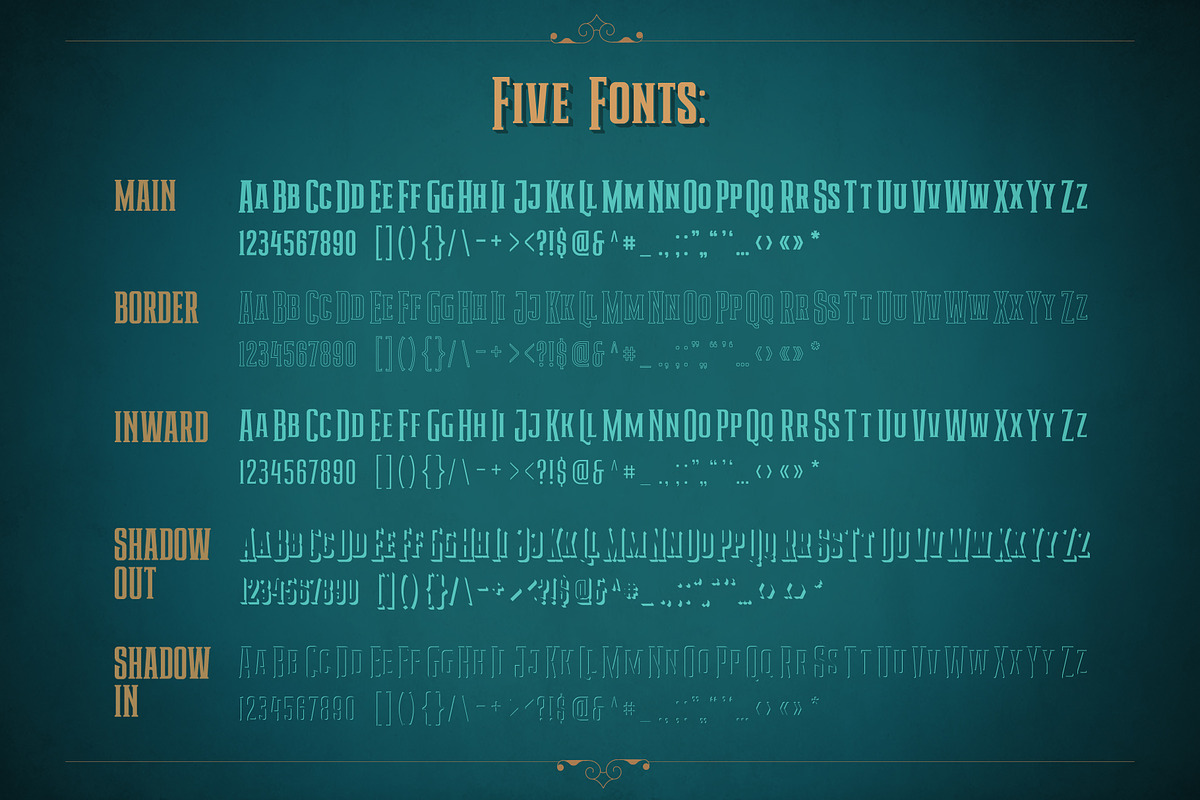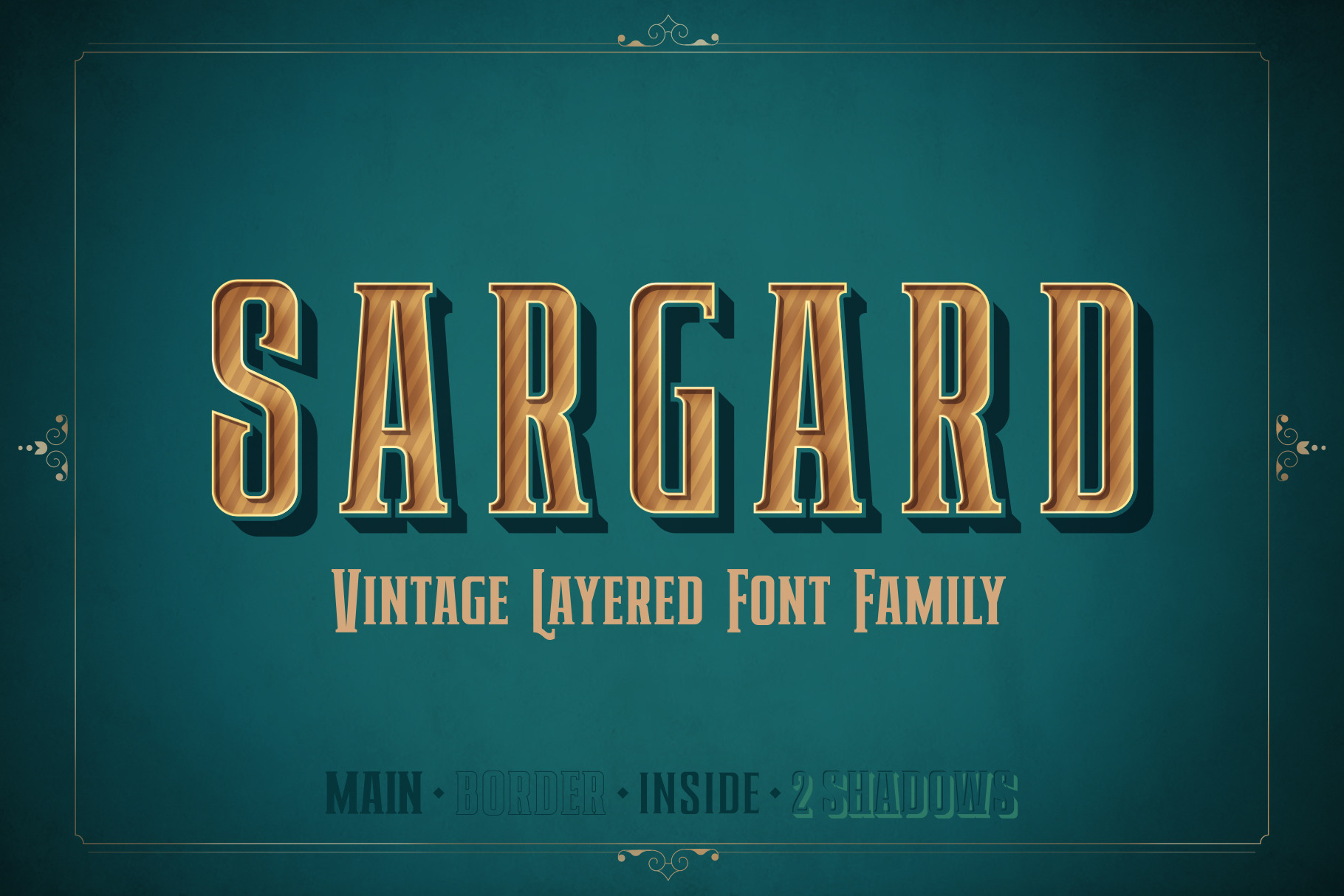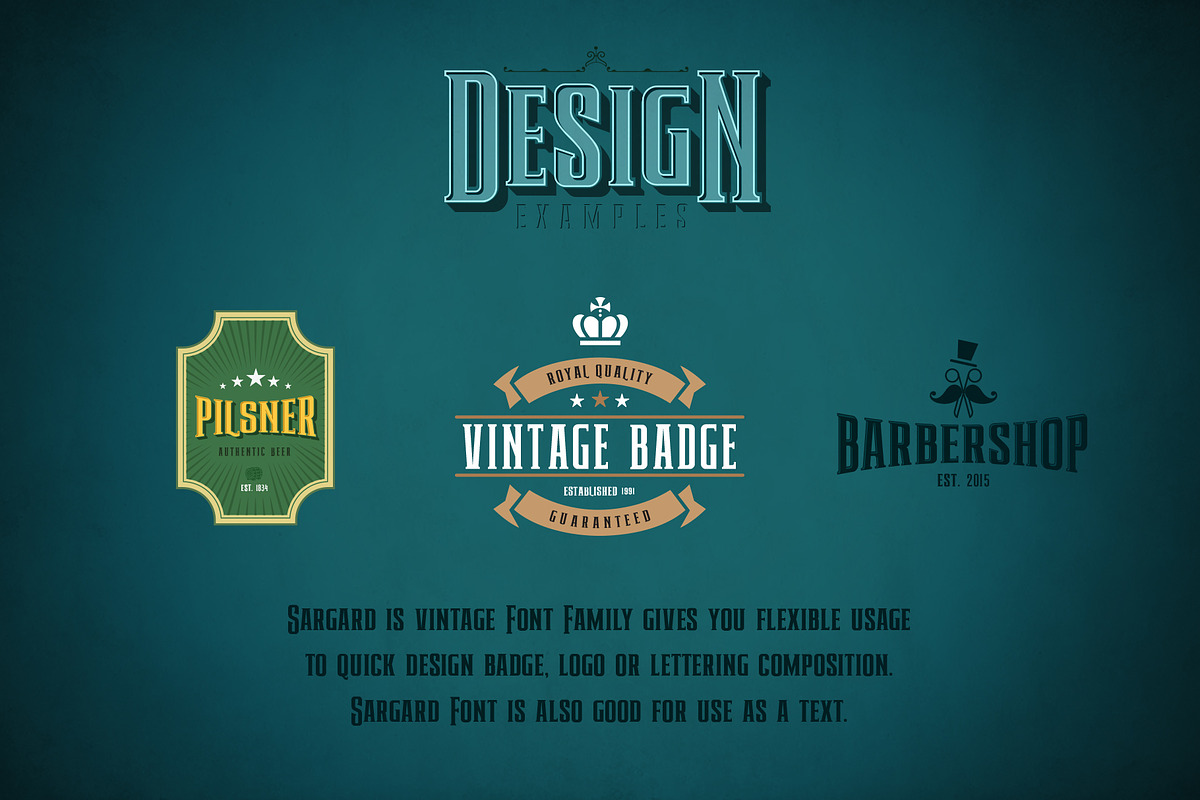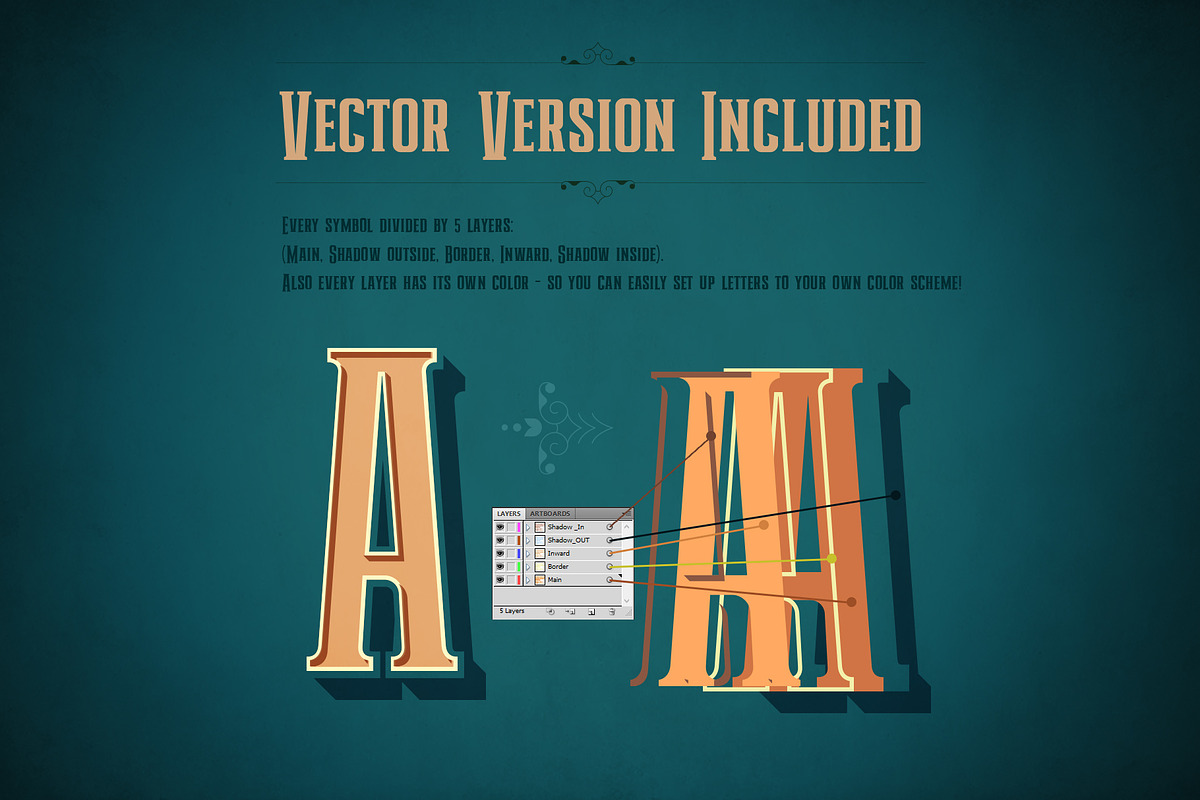
Sargard Font Family
Sargard Font creates vintage authentic retro atmosphere and style. It is good looking as header and as text both for such areas as Vintage Authentic, Barbershop, Whisky, Bourbon, BAR / PUB, Craft Work, GYM.